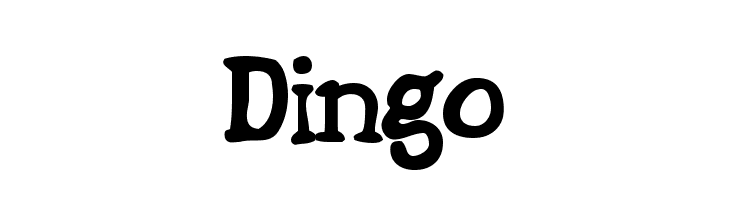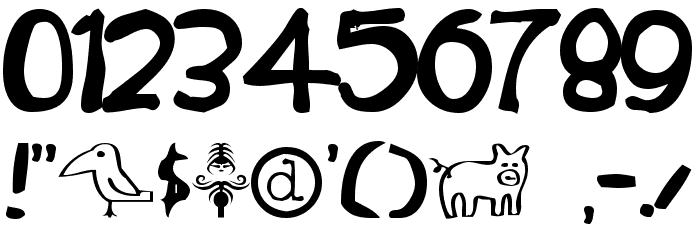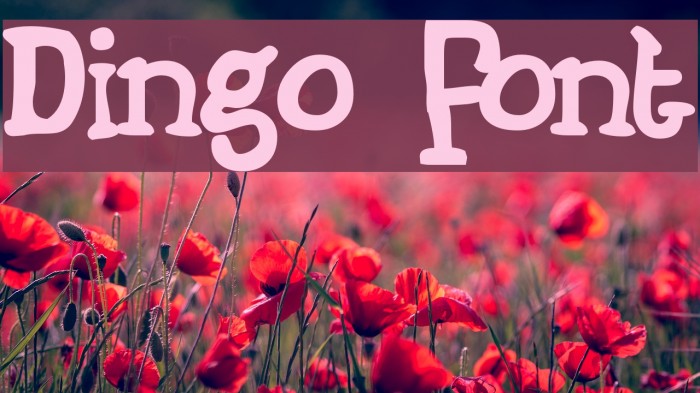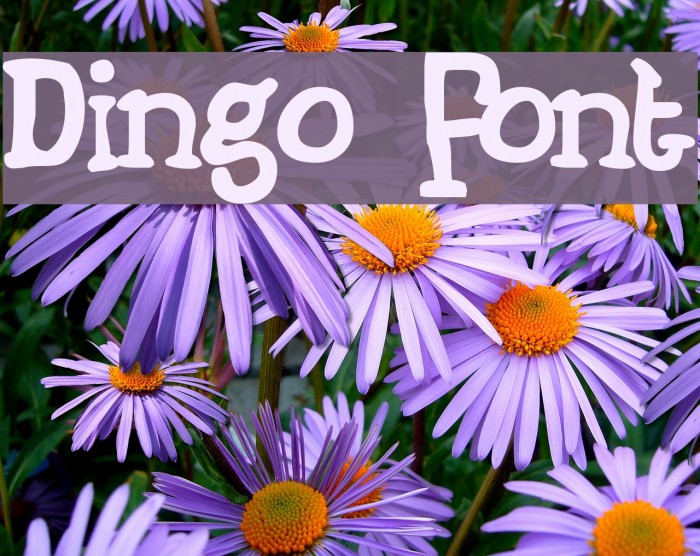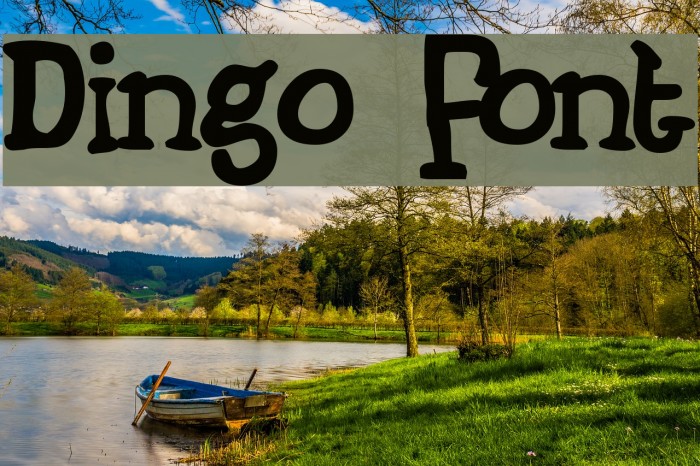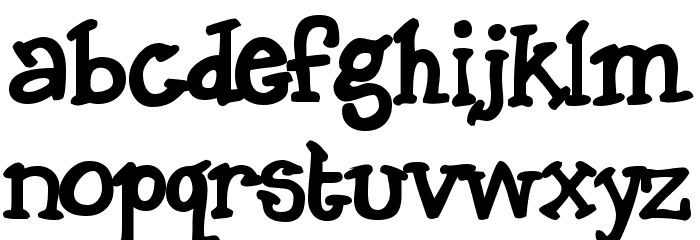
Dingo Font
Dingo Description
This font features a playful and whimsical design, characterized by its bold and uneven strokes. The letters have a hand-drawn appearance, with exaggerated curves and a slightly irregular baseline that adds to its charm. The uppercase and lowercase letters maintain a consistent style, with rounded edges and a sense of movement. Numbers and special characters follow the same playful aesthetic, making the font suitable for creative and informal projects. Its unique style captures attention and conveys a sense of fun and creativity.
| Overall Style | Whimsical |
| Proposed Projects | Ideal for children's books, playful branding, greeting cards, and creative posters. |